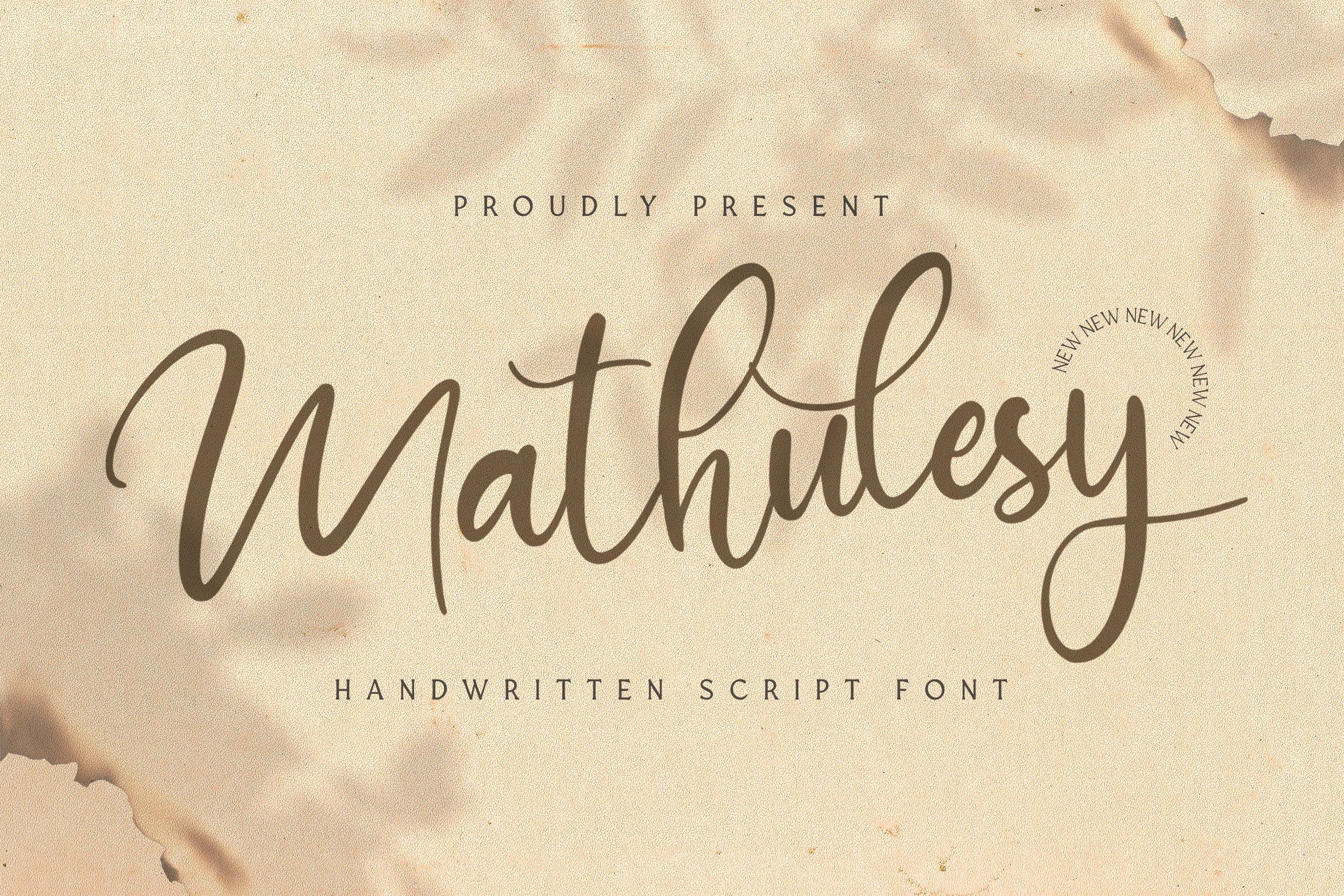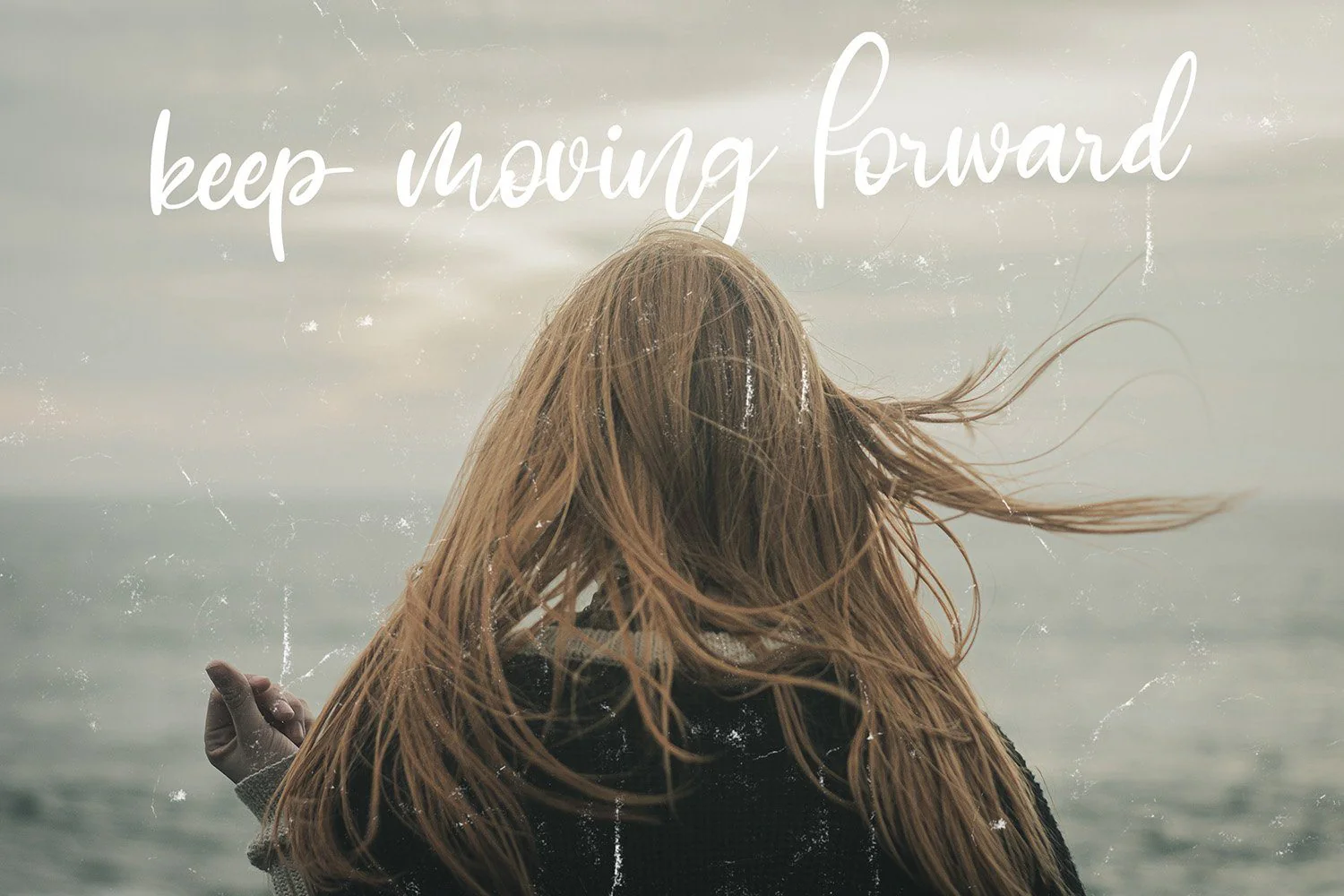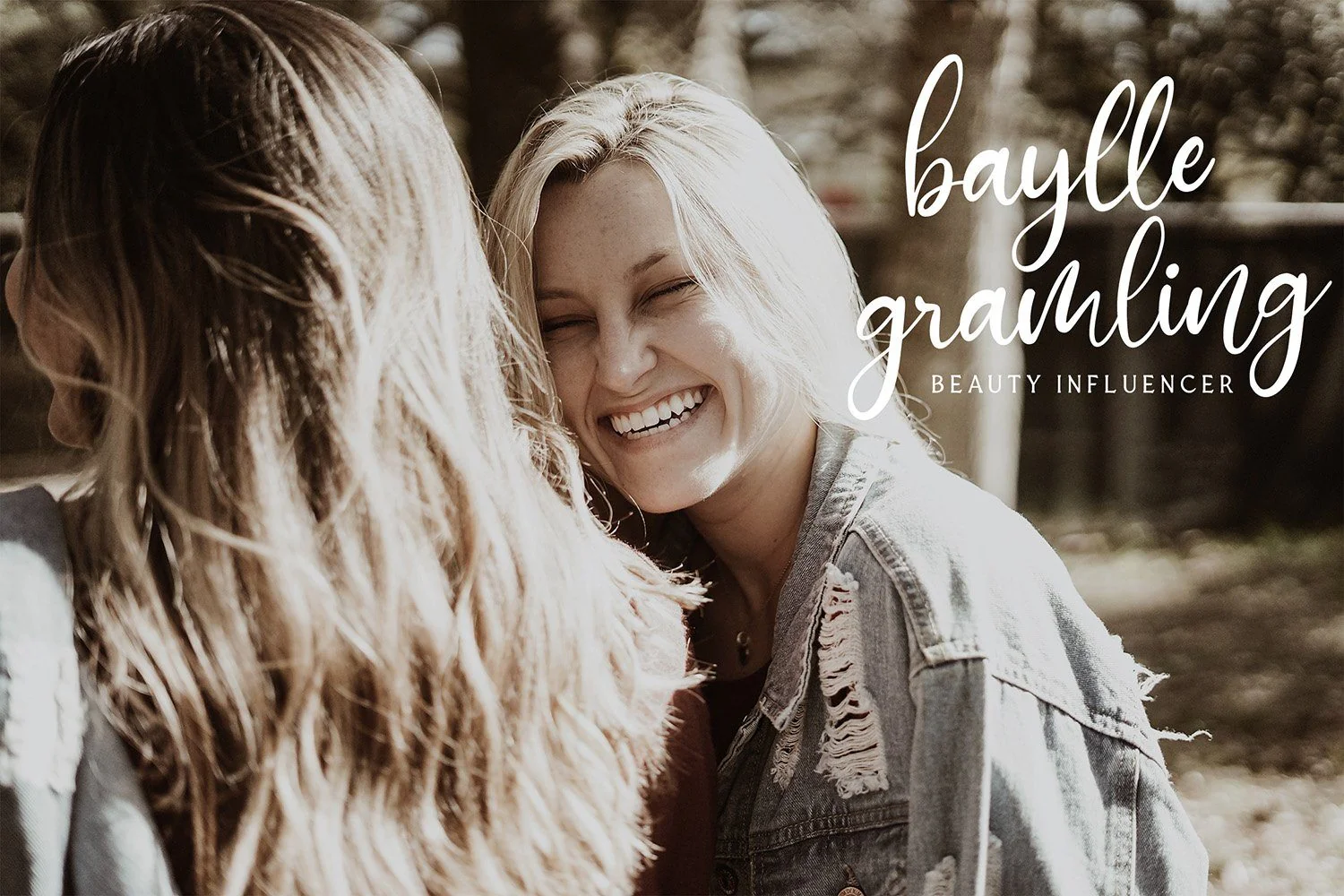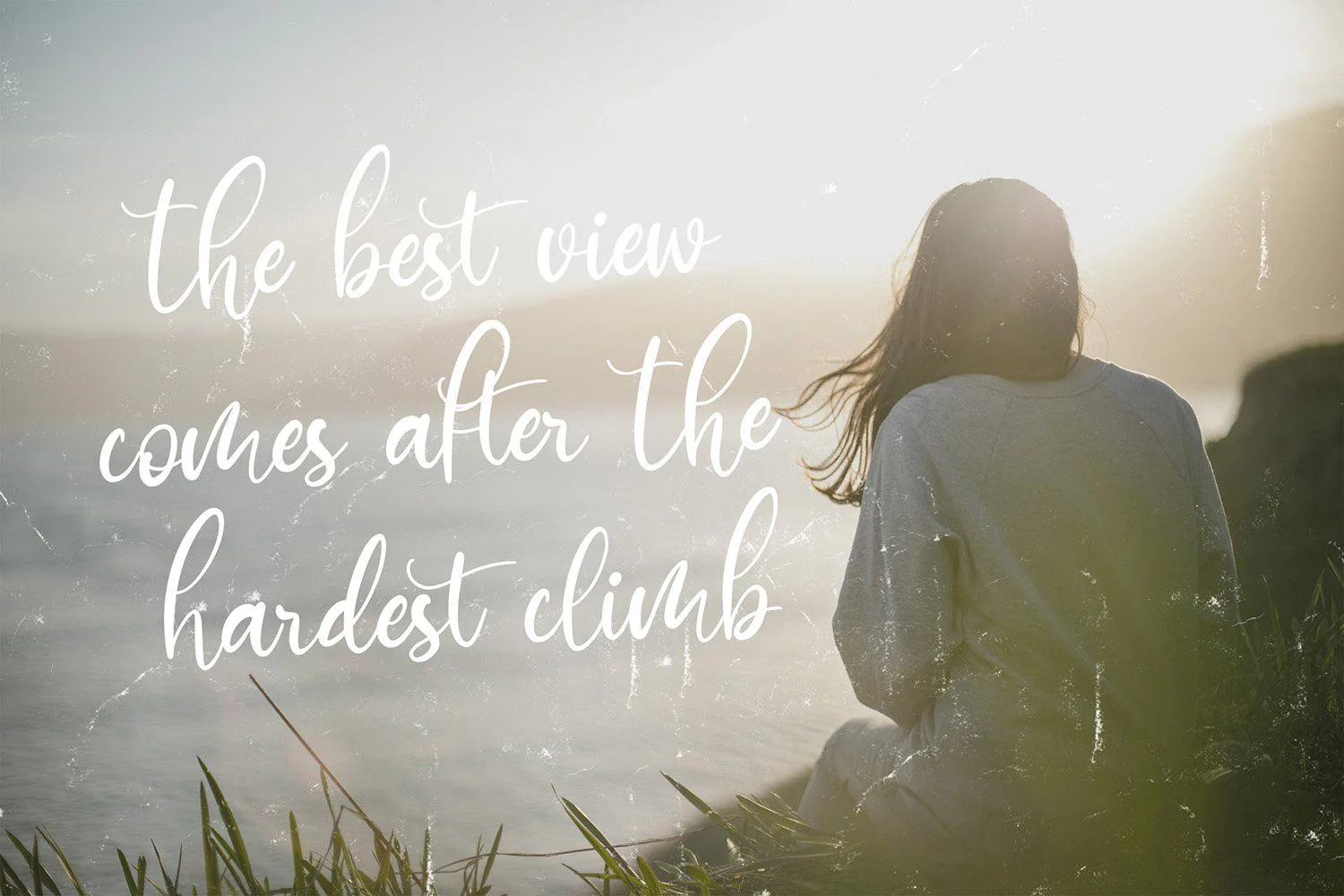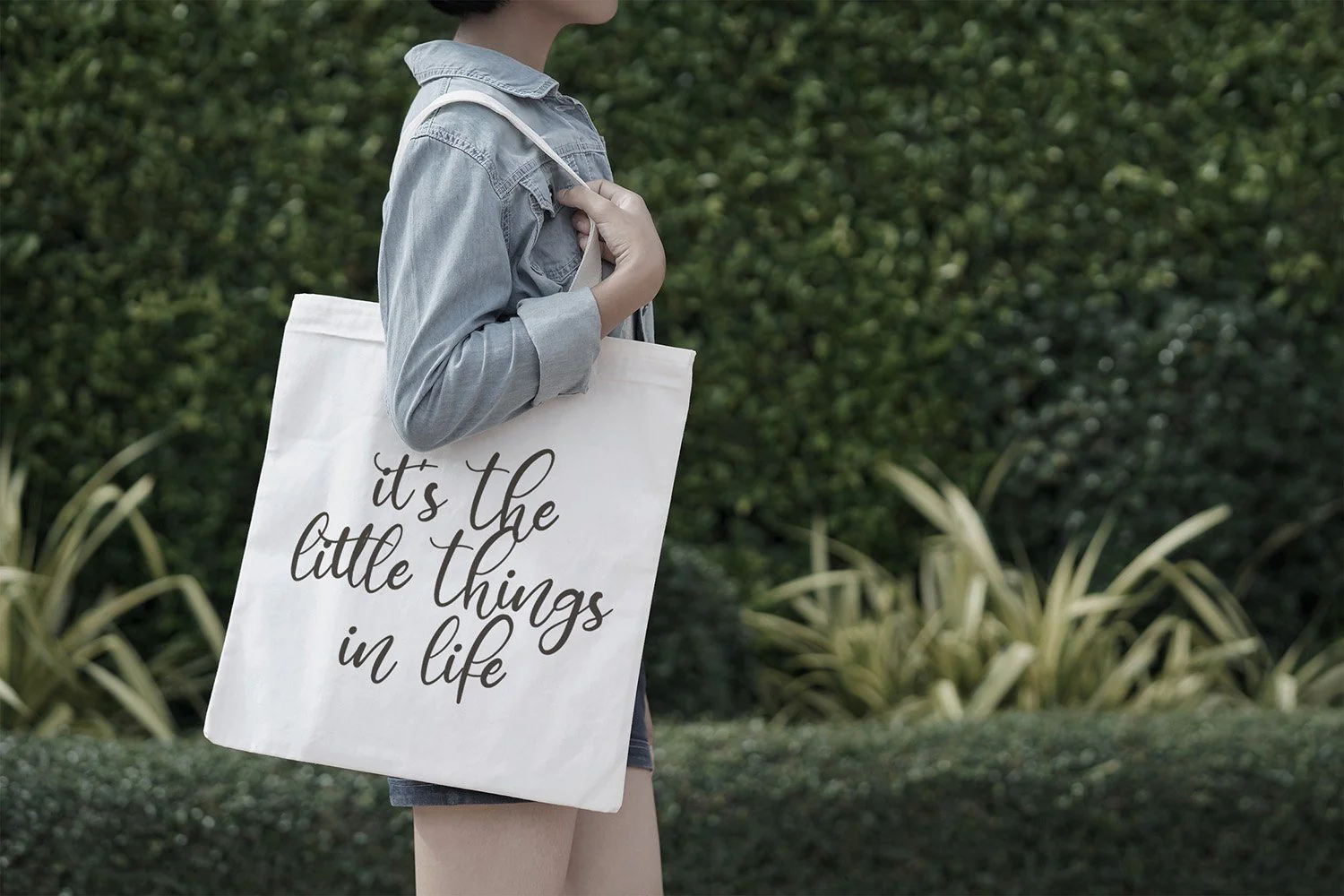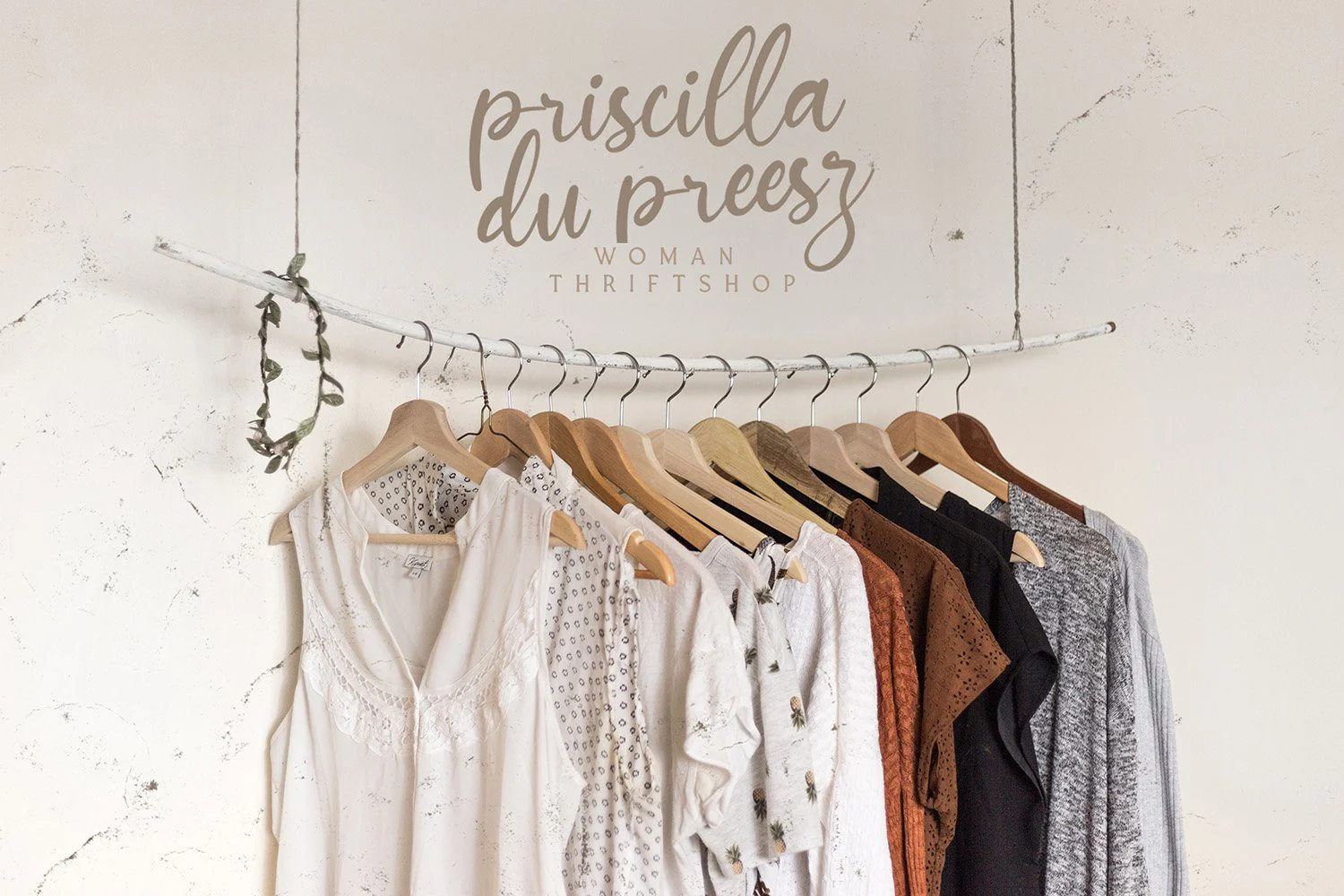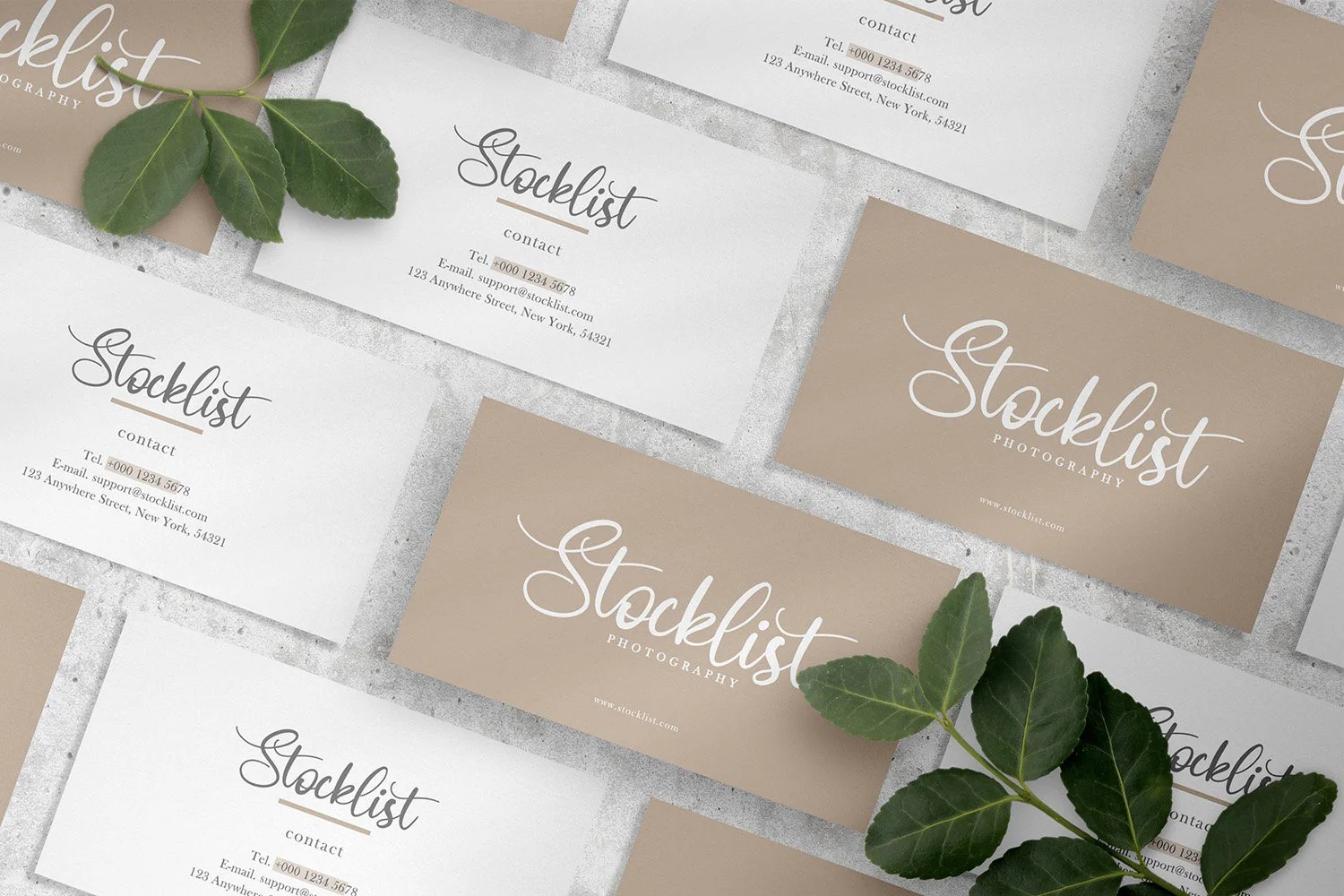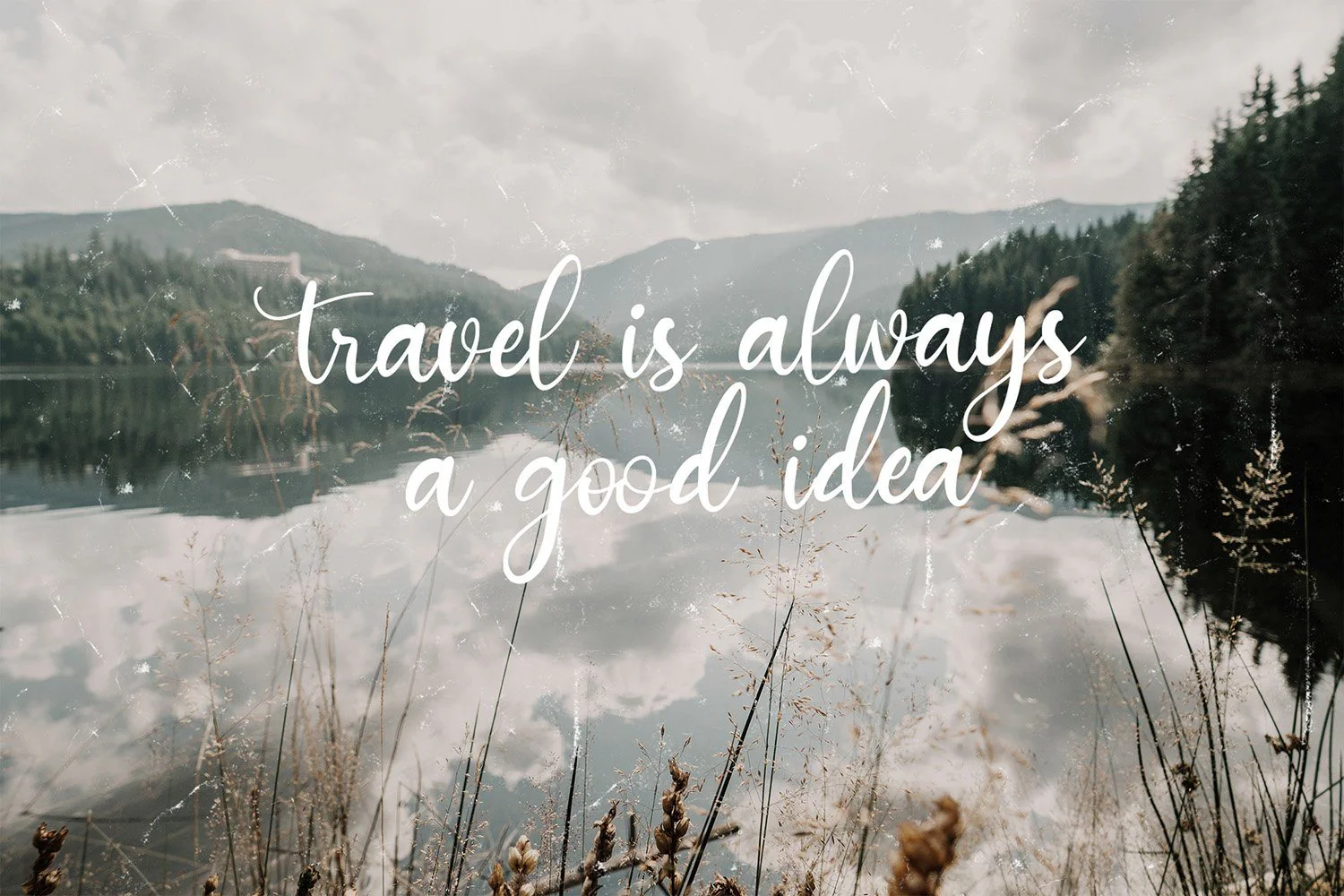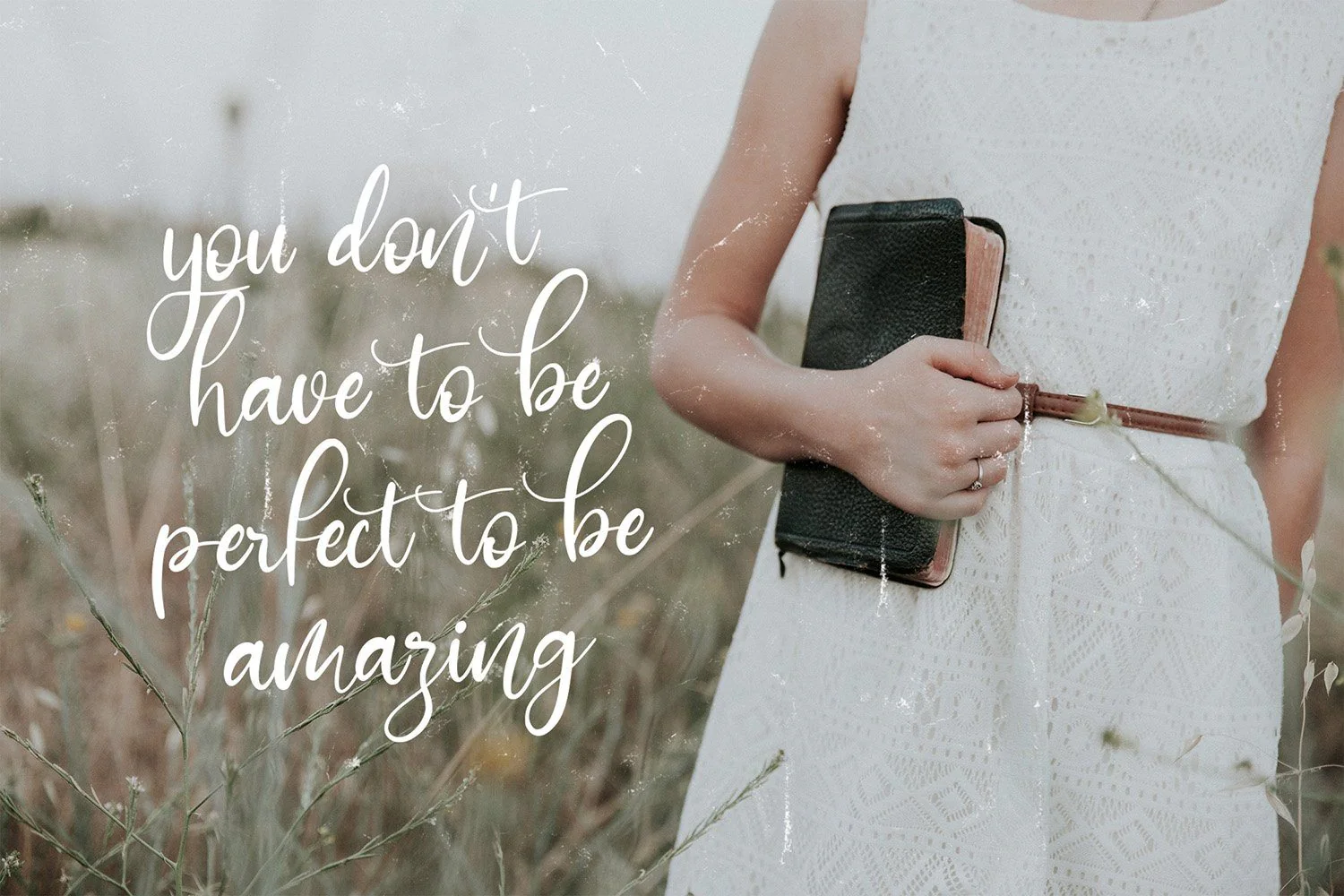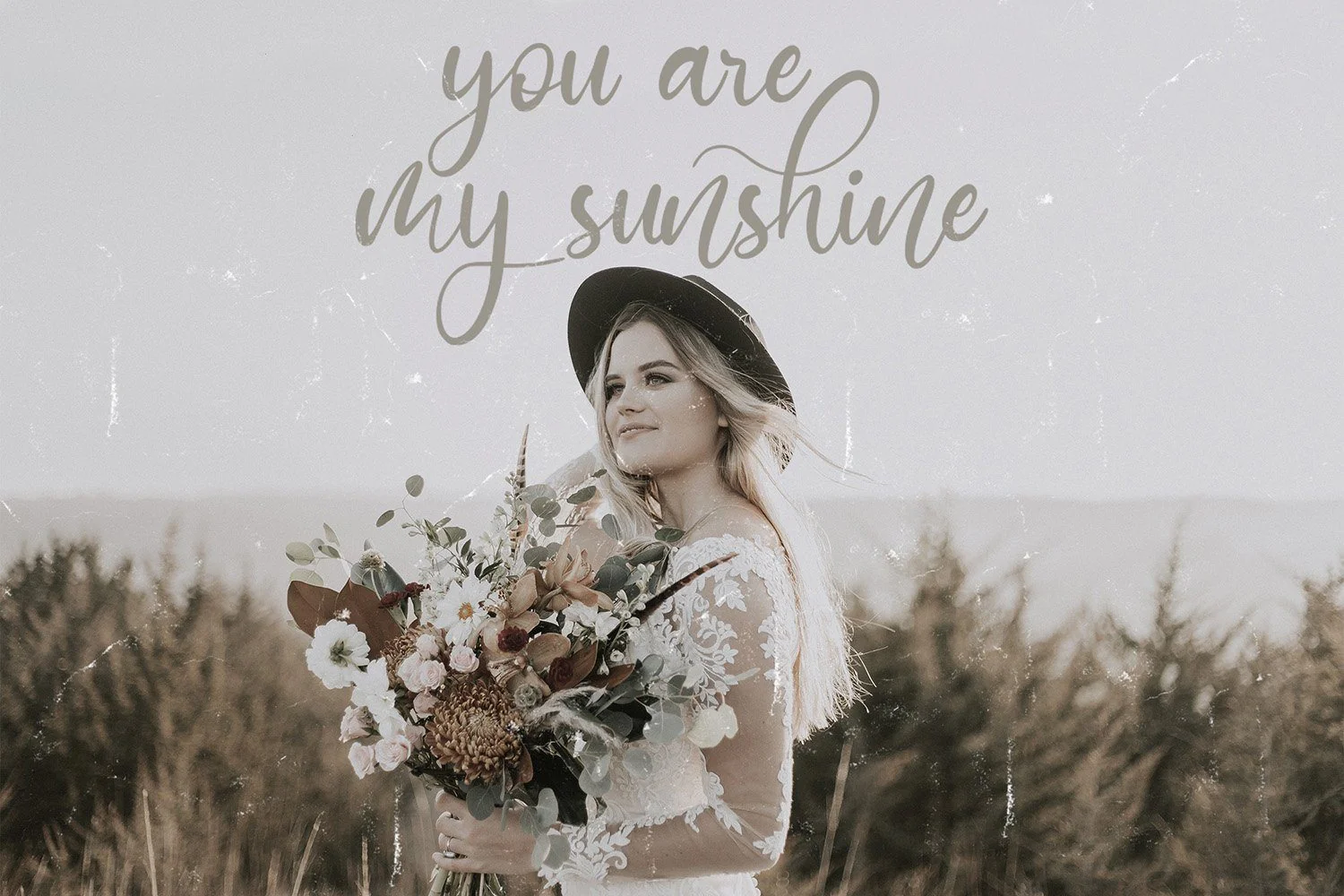
Mathulesy - Handwritten Font
Introducing Mathulesy - Handwritten Font
Mathulesy is a Script Font with Handwritten Style. The Mathulesy font made with digital brush pen strokes that making this font look authentic. This font is perfect for fashion brand, wedding invitation, business card, logo brand, signature, and then calligraphy.
This Font contains Elegant, Authentic, Luxury and has a Unique Concept.